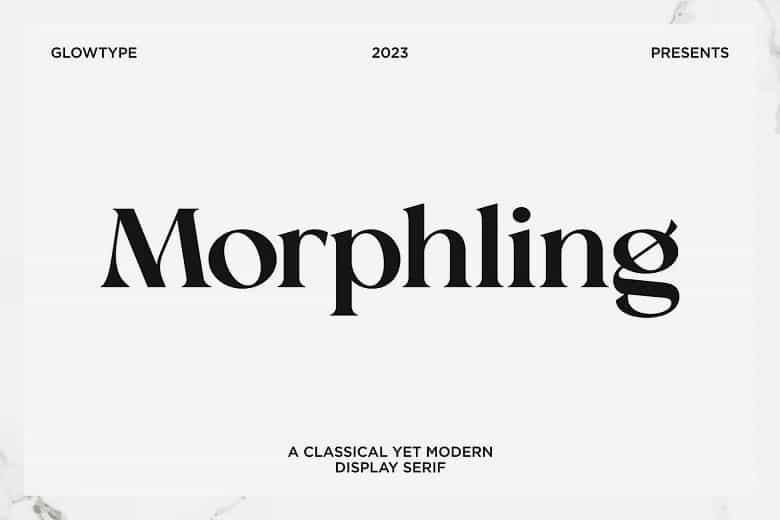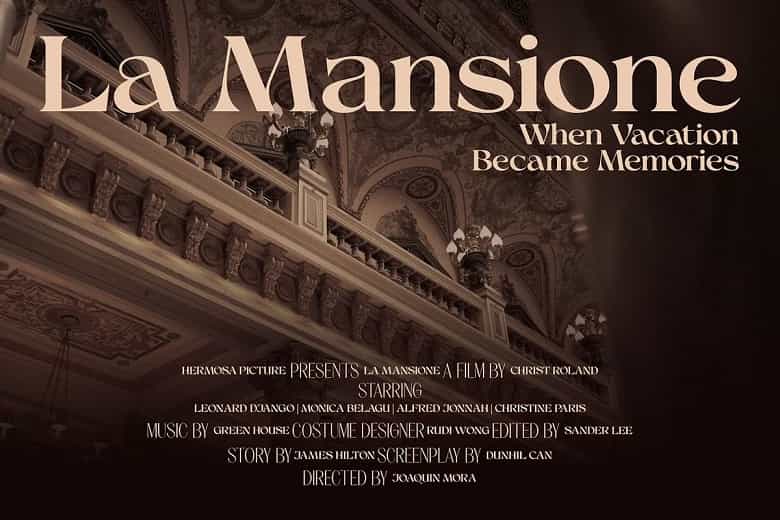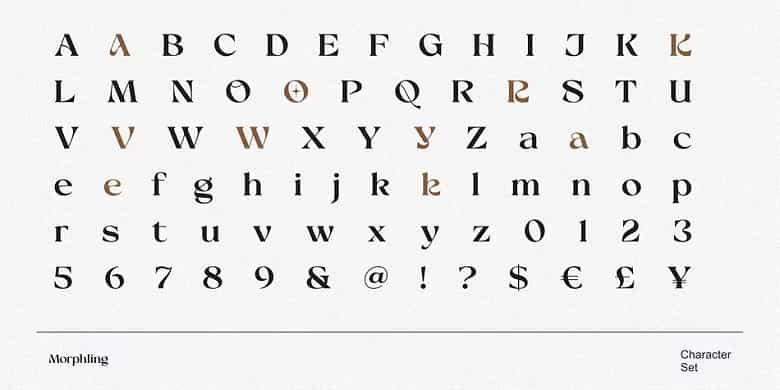
Morphling is a display serif font of modern design that conveys the classical aesthetics with a contemporary approach. Based on the modern serif that is currently popular around the world with a touch of the psychedelic style.